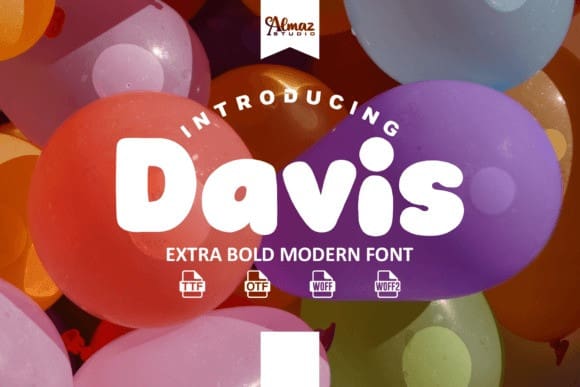
Davis Display Font
Davis Display Font, is bold and fun display retro font. Suit perfect for kids’ themes books market, online games, stationary, school supplies font, poster, birthday invitation, YouTube covers, YouTube thumbnails, social media page covers, and so on. Perfect for playful kids’ font with cartoon style. This font is specially crafted for children, Kids, Boys, Kindergarten, Birthday, and Comic purposes. Davis Font font has a unique glyph and fun style.